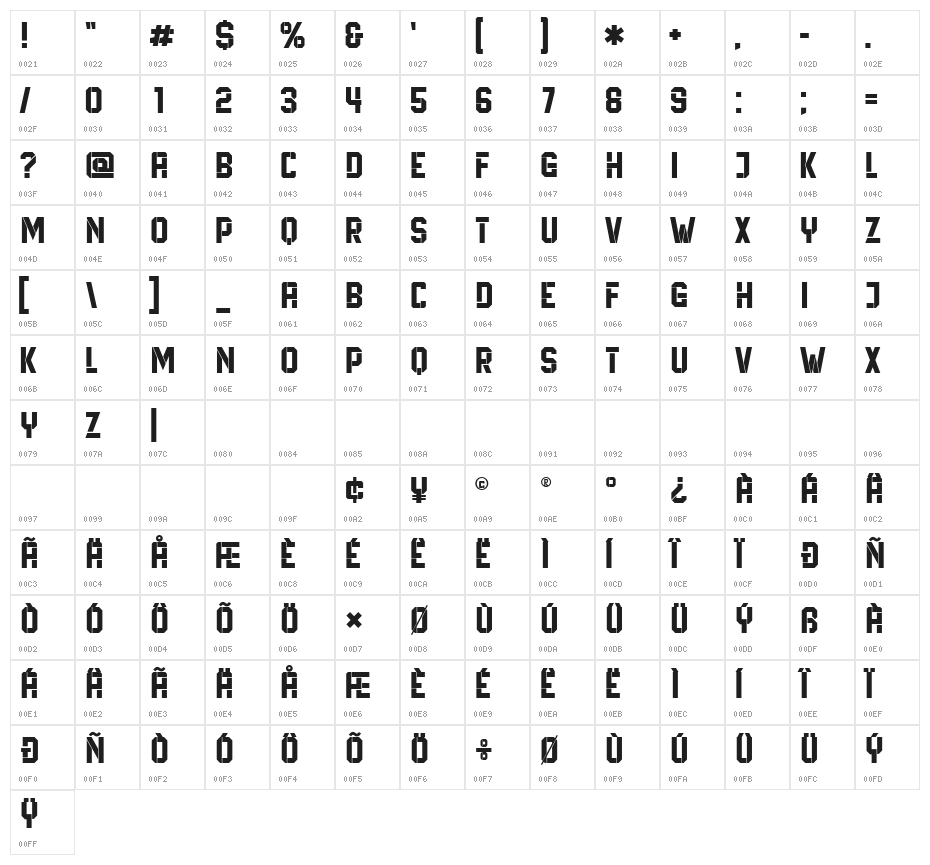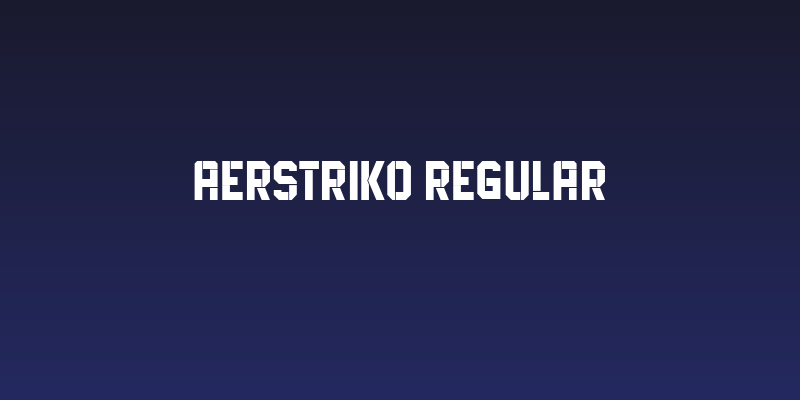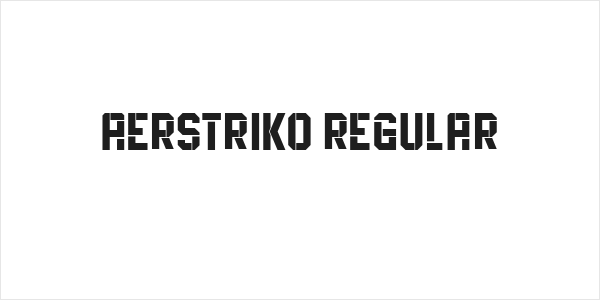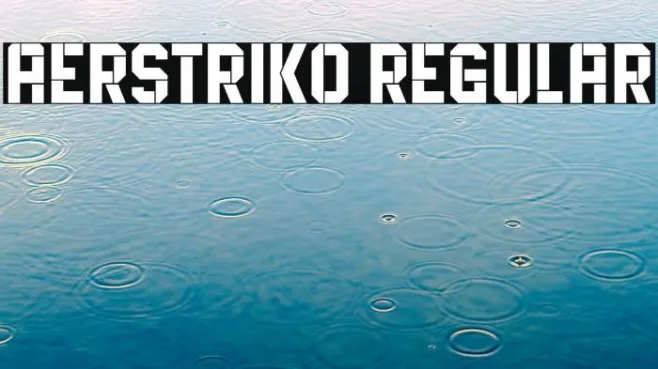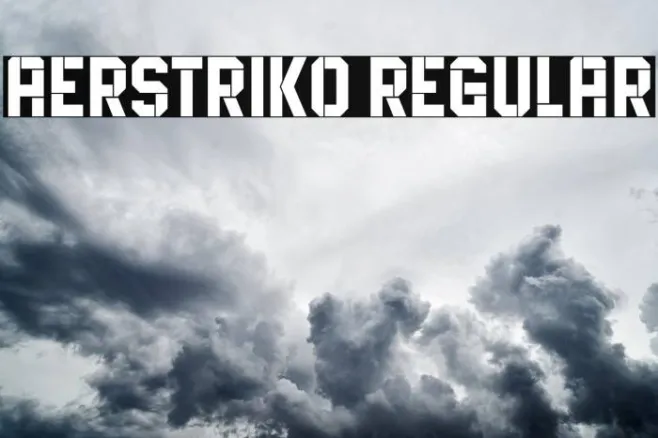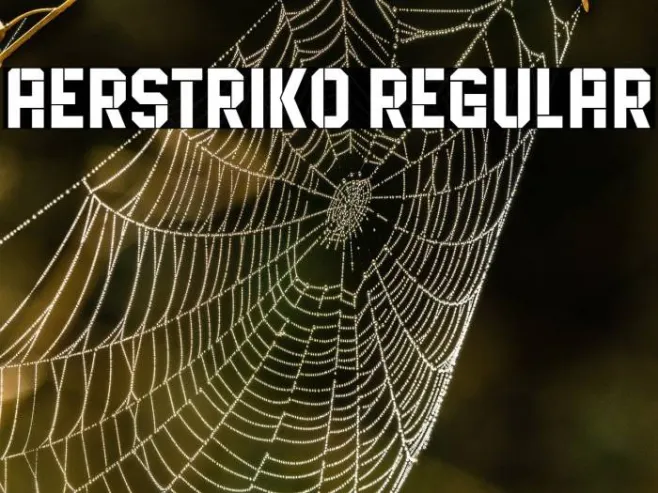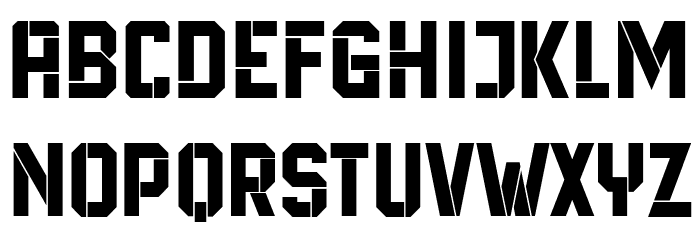
Aerstriko Regular Font
Aerstriko Regular Description
This font features a bold, geometric design with a strong, angular presence. The characters are constructed with sharp, straight lines and a blocky appearance, giving it a futuristic and industrial feel. The uppercase and lowercase letters maintain a consistent style, with the uppercase being slightly more pronounced. The numbers and special characters follow the same design principles, ensuring uniformity across all glyphs. The font's boldness and unique style make it stand out, suitable for projects that require a modern and edgy look.
| Proposed Projects | Ideal for branding, posters, video game graphics, and any project needing a modern, edgy aesthetic. |